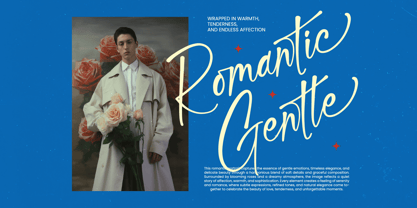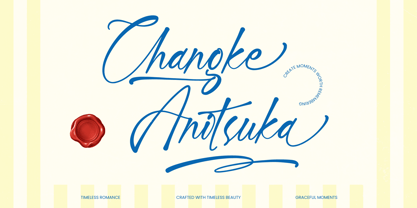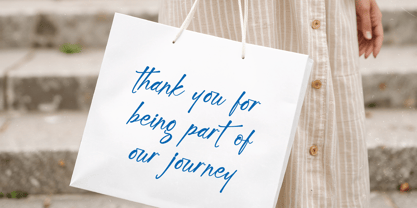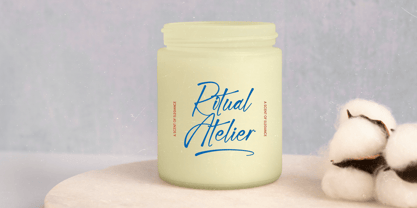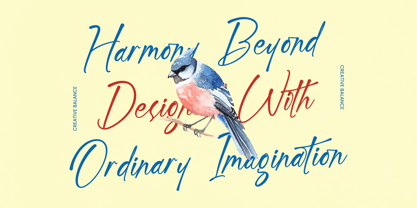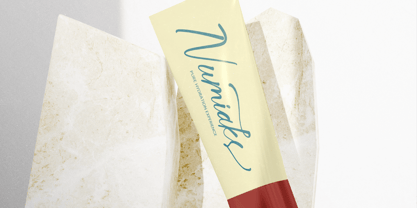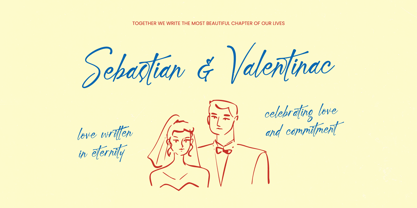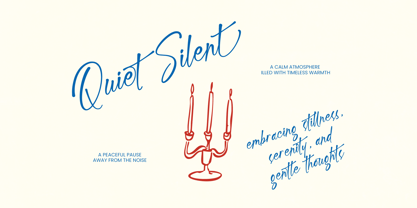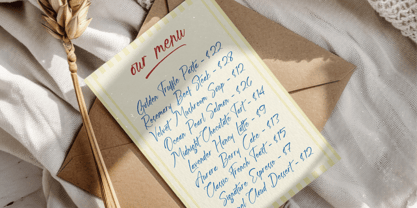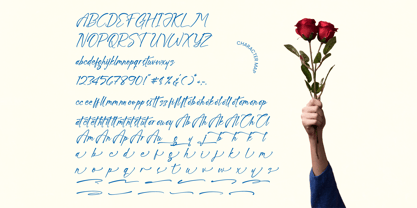
Changke Anitsuka
von Letterena Studios
Die Schriftfamilie Changke Anitsuka wurde von Heru Utama Putra entworfen und von Letterena Studios veröffentlicht. Changke Anitsuka enthält 2 Stile und Familienpaketoptionen. Mehr über diese Familie
Changke Anitsuka - Handwritten Ink
Elevate your creative vision with a typeface that embodies raw elegance and artisanal craftsmanship. Changke Anitsuka - Handwritten Ink captures the fluid motion of a master’s pen, offering a sophisticated aesthetic that blends organic textures with a refined flow. Its hand-drawn authenticity and expressive ligatures create a sense of personal connection and high-end quality, making it a standout choice for designers seeking a premium signature style.
Designer: Heru Utama Putra
Foundry: Letterena Studios